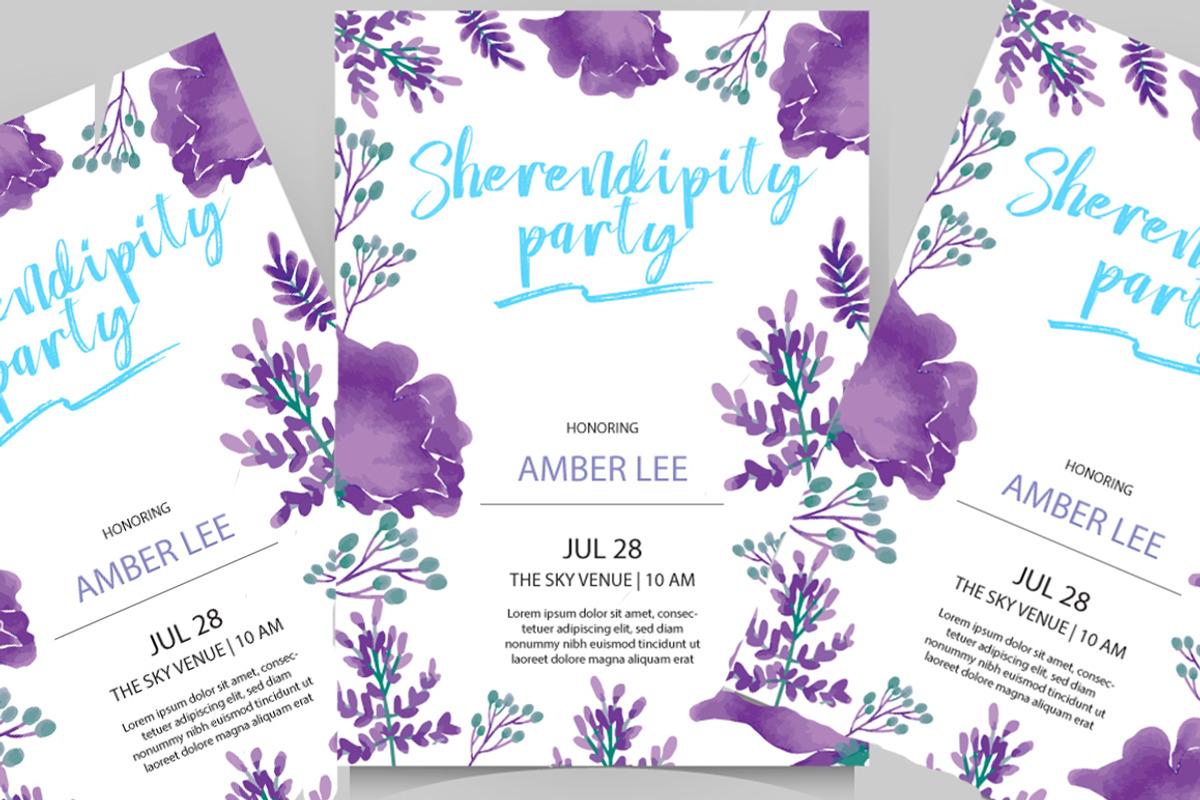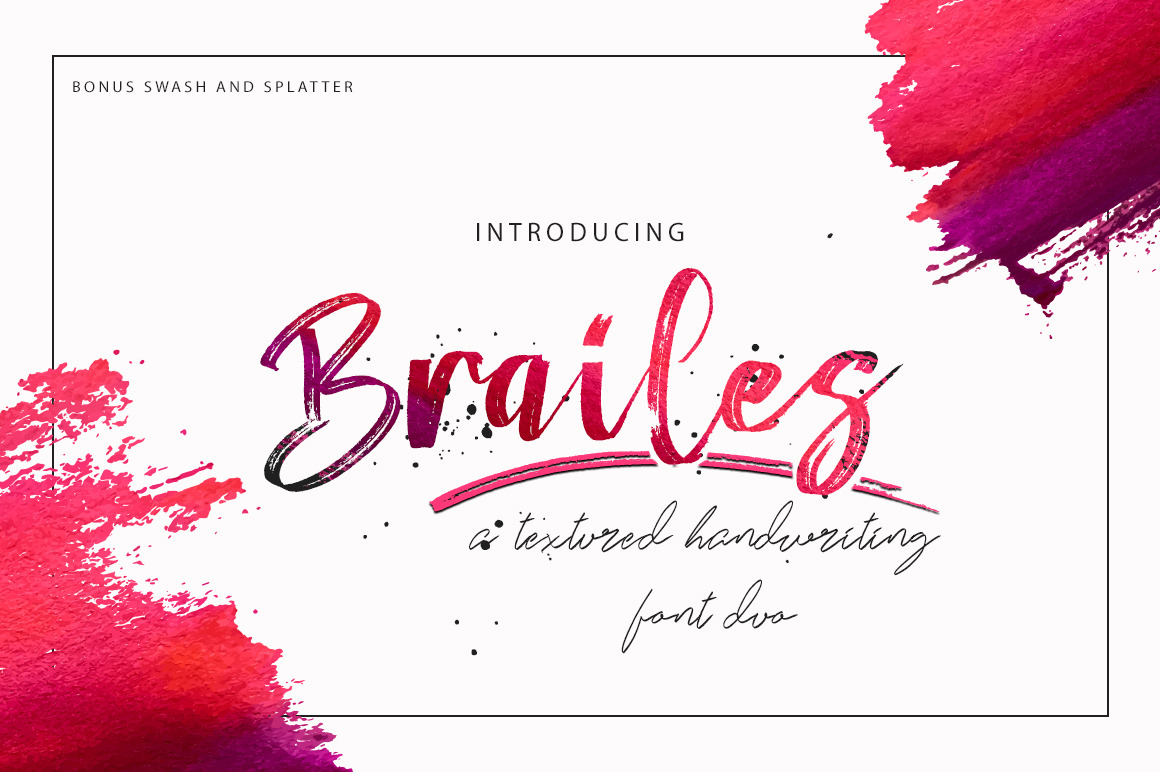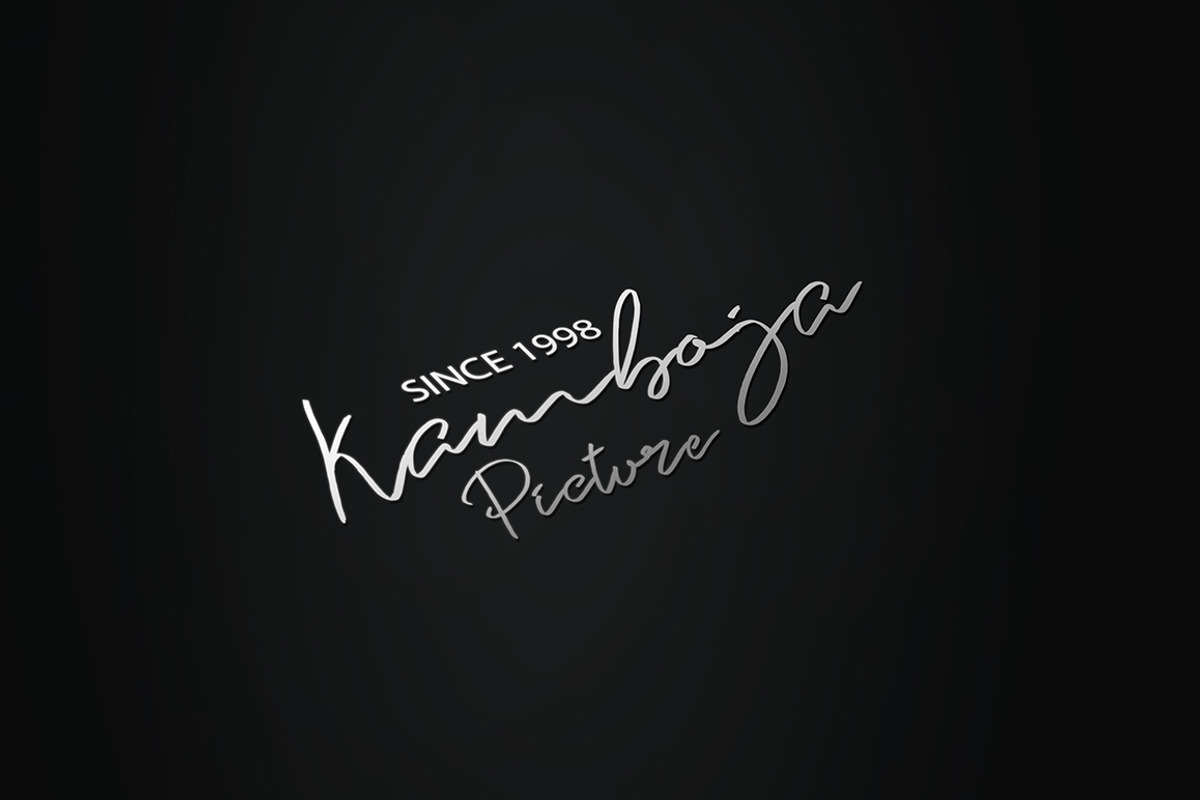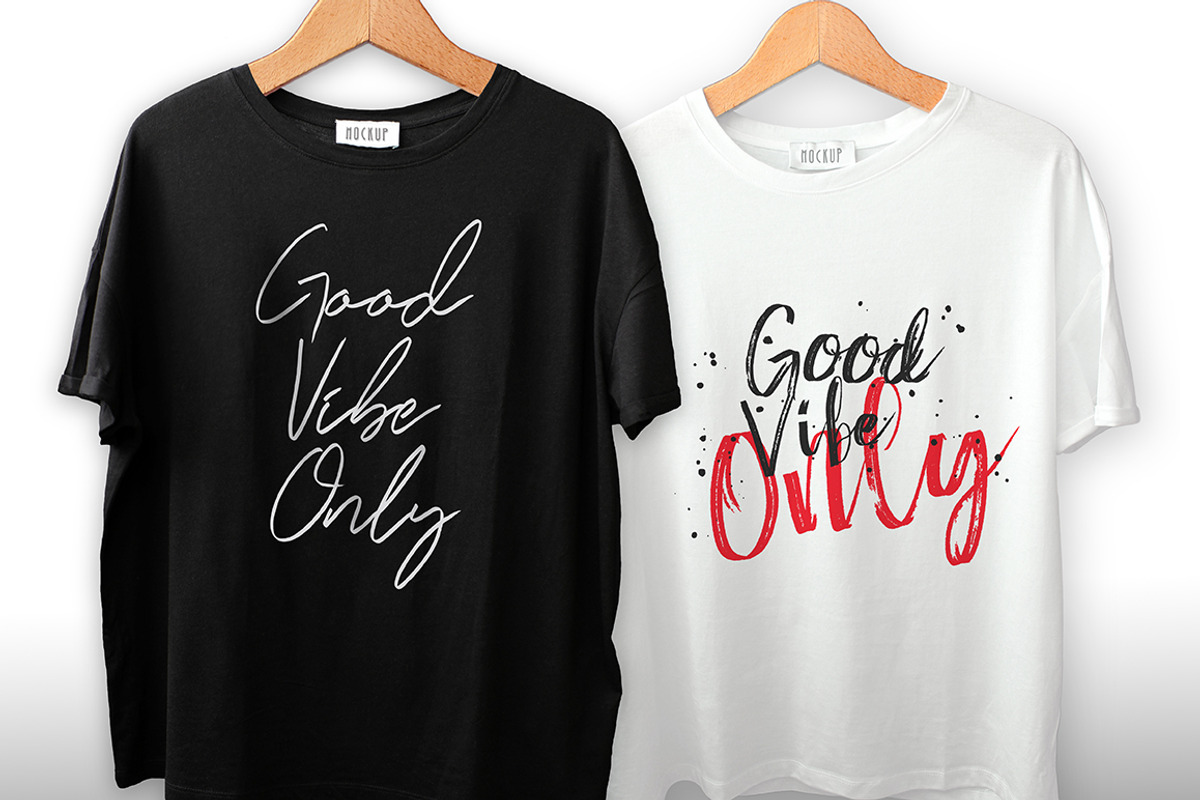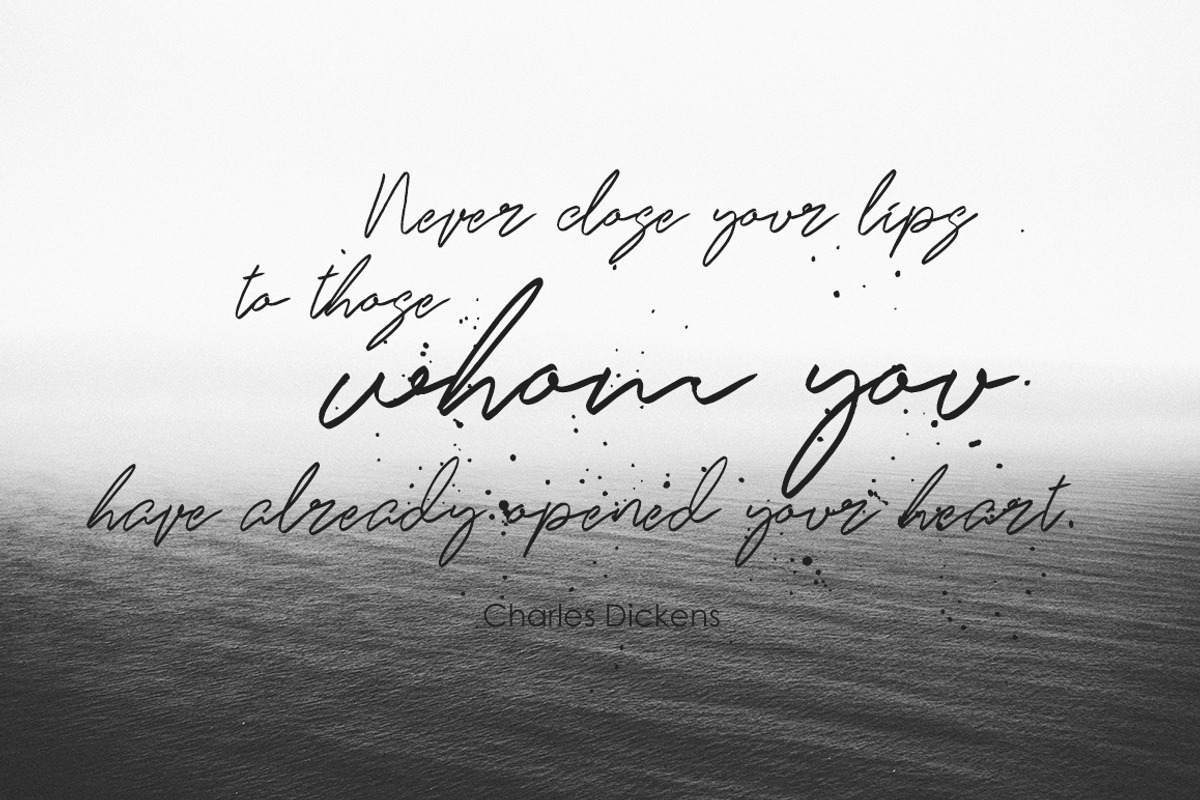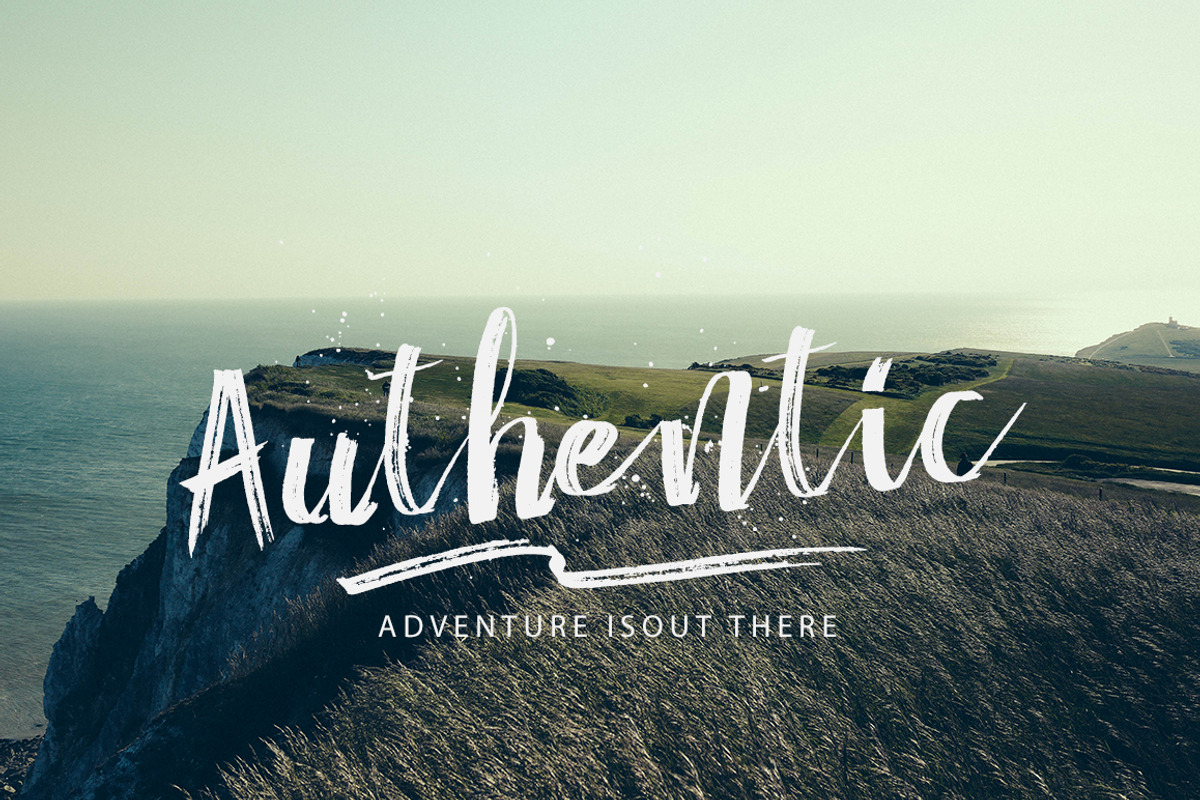
Brailes Font Duo
Brailes is brush script font + signature font + swash and splater. With modern script style this font will perfect for many different project ex: quotes, blog header, poster, wedding, branding, logo, fashion, apparel, letter, invitation, stationery, etc.